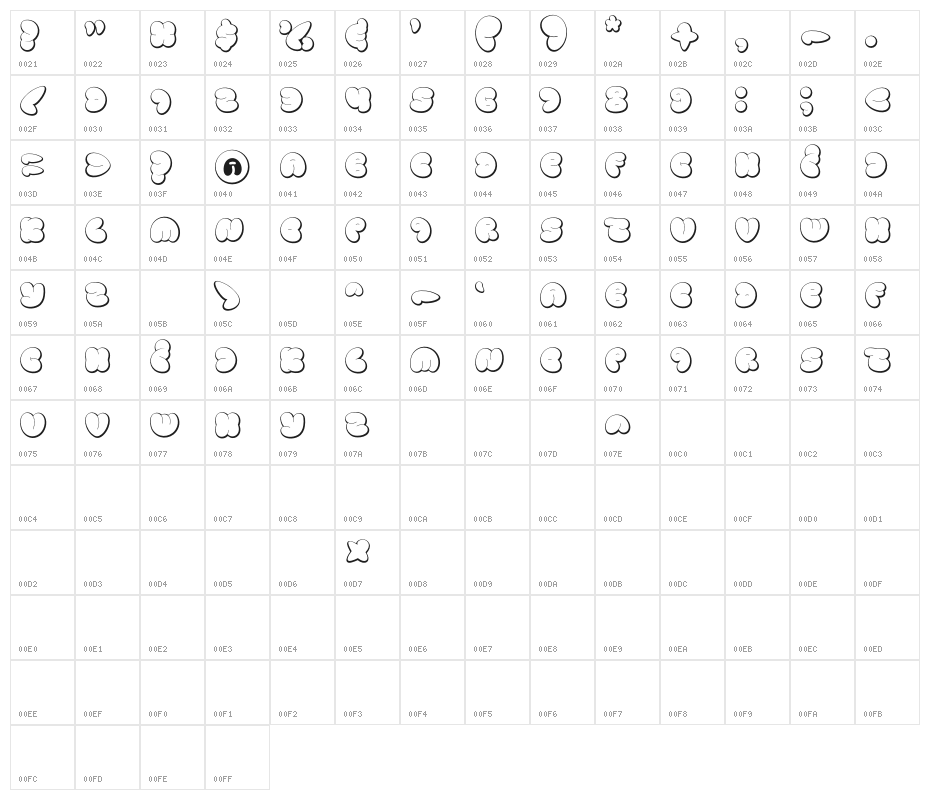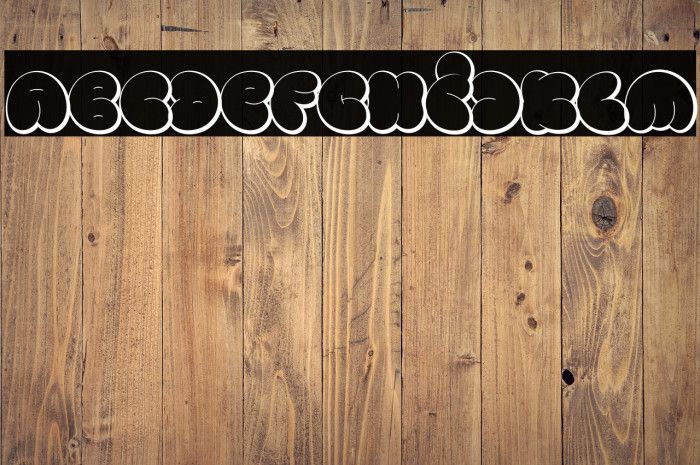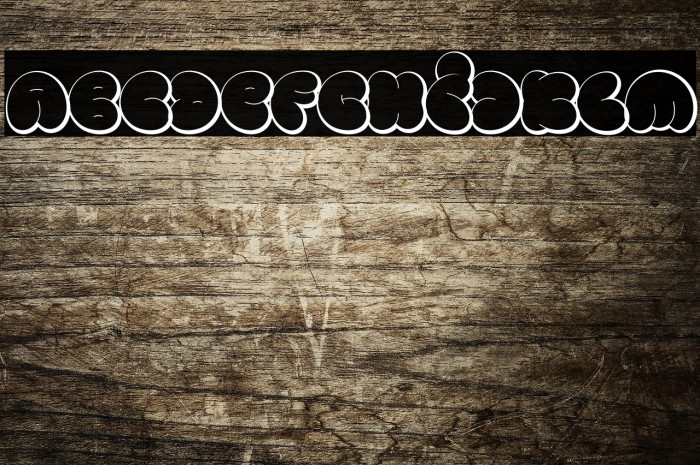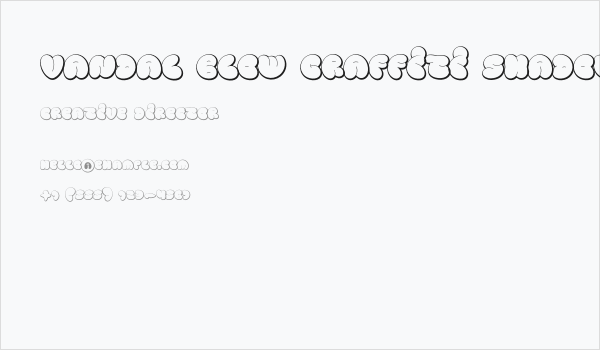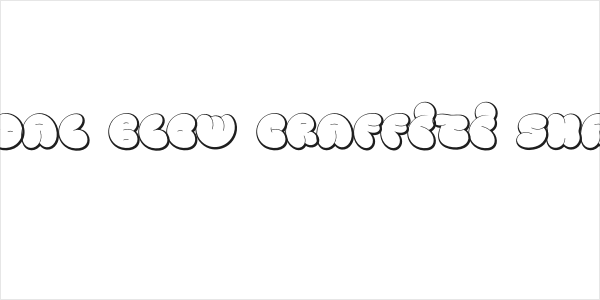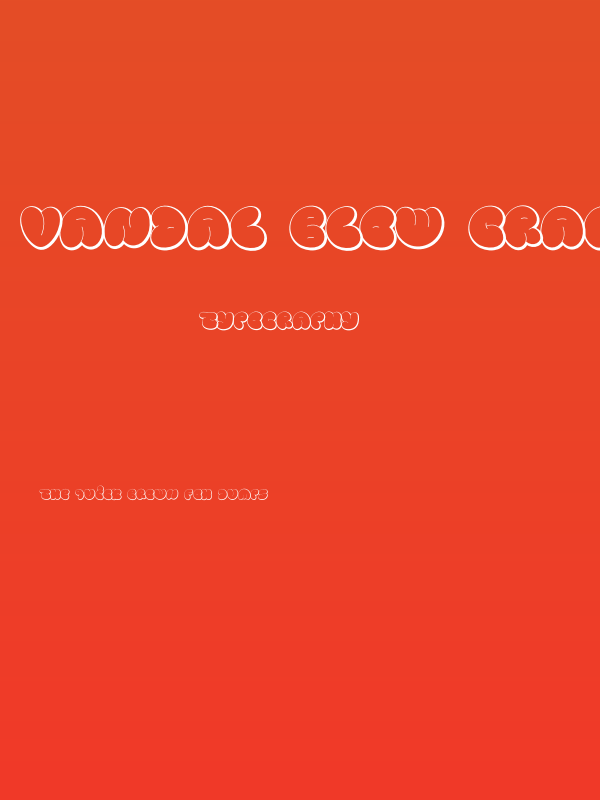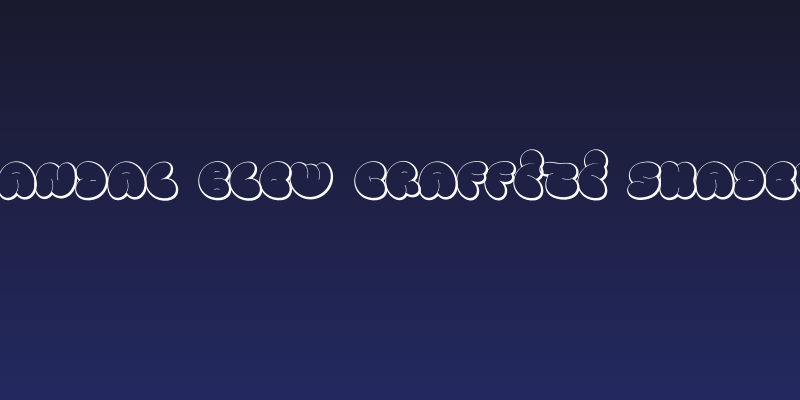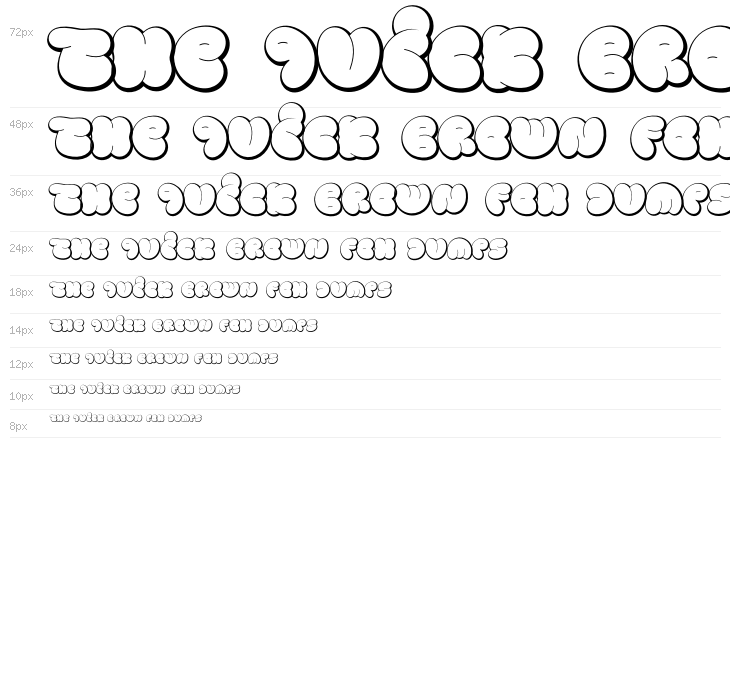
Vandal Blow Graffiti Shadow Font
Vandal Blow Graffiti Shadow Description
This font features a bold, playful design reminiscent of graffiti art, with each character appearing as if it's inflated or puffed up. The letters are rounded and have a shadow effect that gives them a three-dimensional appearance. The style is informal and energetic, capturing the essence of street art with its exaggerated curves and whimsical forms. The font maintains consistent thickness throughout each character, contributing to its cohesive look. It's ideal for projects that require a fun and eye-catching aesthetic.
| Overall Style | Modern, Urban |
| Proposed Projects | Perfect for street art designs, urban-themed posters, youth-oriented branding, and playful event invitations. |